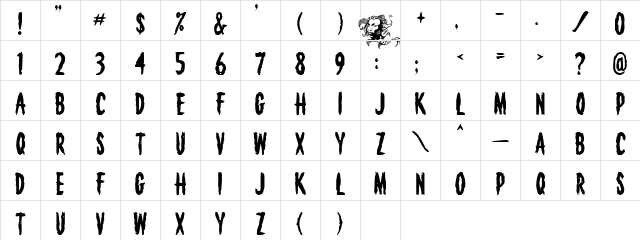
Deathknell carries an unsettling edge - its distorted letterforms are built to unsettle, perfectly suited to horror, Halloween, and dark creative work.
Font Pairing: Pair with a clean neutral sans-serif for body copy to let Deathknell's character lead without overwhelming the composition.
Pro Tip: Use Deathknell at larger display sizes for maximum impact. Consider generous tracking to let the disturbing character of each letterform breathe.